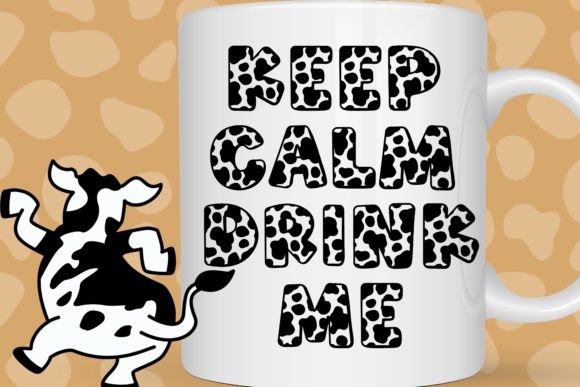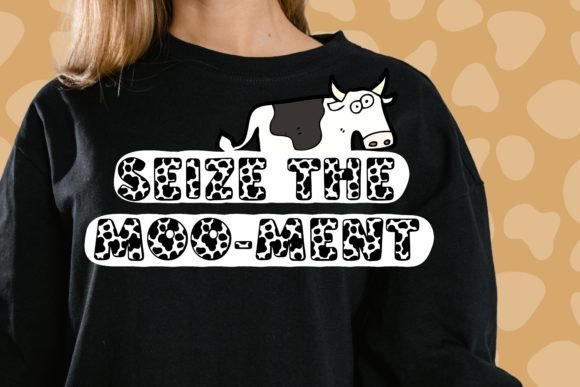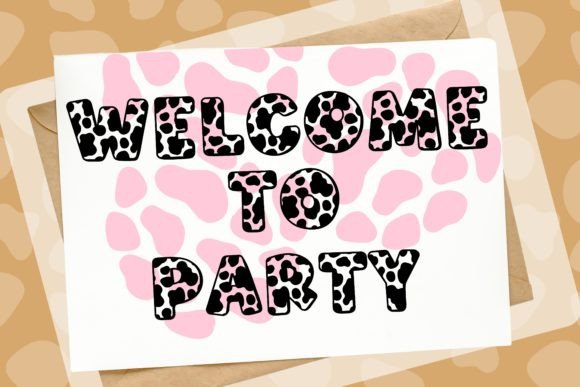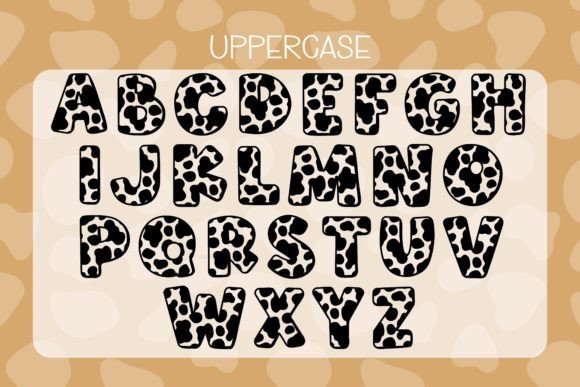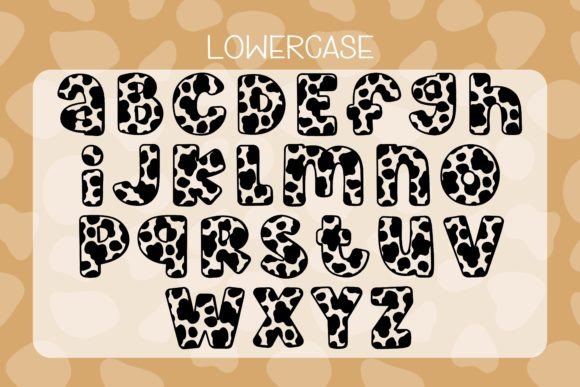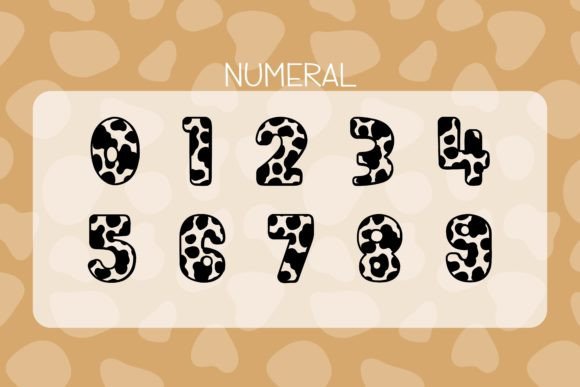
Introduction to Milky Cow Font
Milky Cow is designed in a cute and adorable decorative font style.
It would be awesome for your lovely project and also your child-related project such as back to school, birthday party decoration, and much more to any topic which needs bright and fun touch Let’s try it and add it to your creative ideas and notice how it makes them stand out.